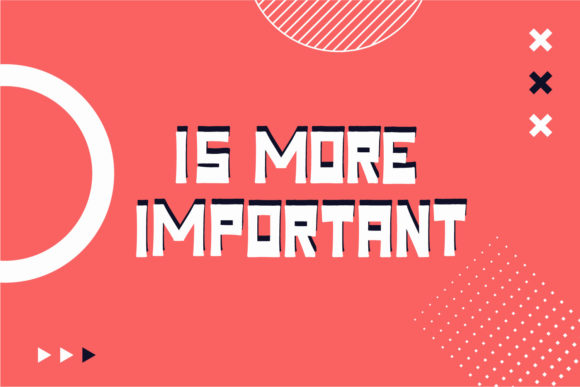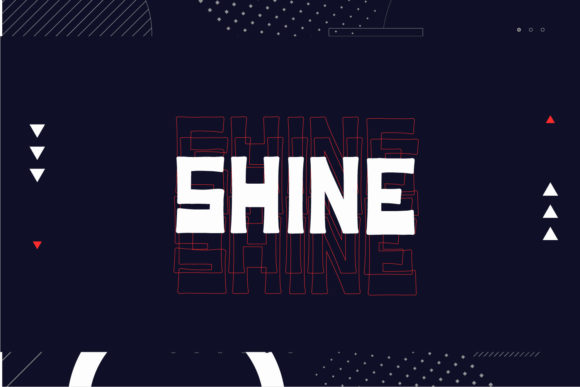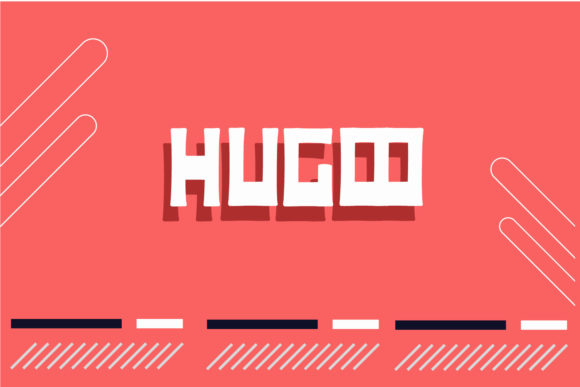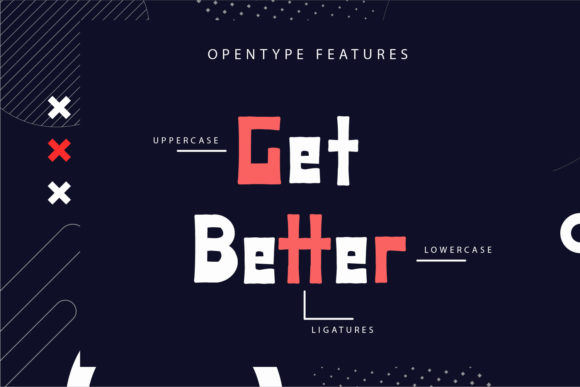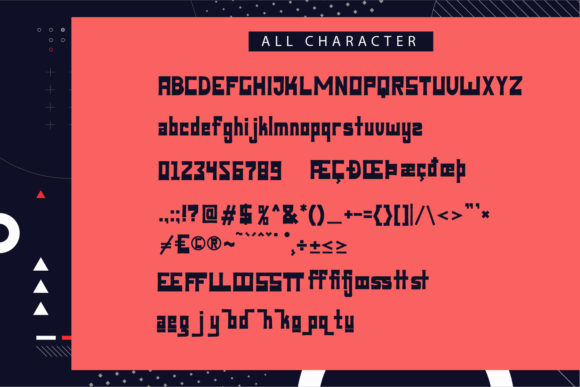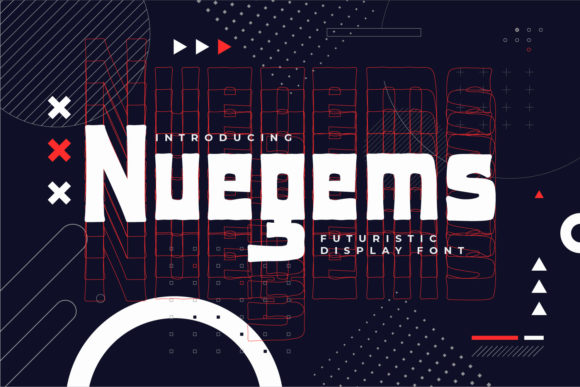
Introduction to Nuegems Font
Nuegems is a cool, bold and thick lettered display font.
This font reads as strong, confident, and dynamic and can add tons of nostalgic character to your designs .
Key Features of Nuegems Font
Why Choose Nuegems Font?